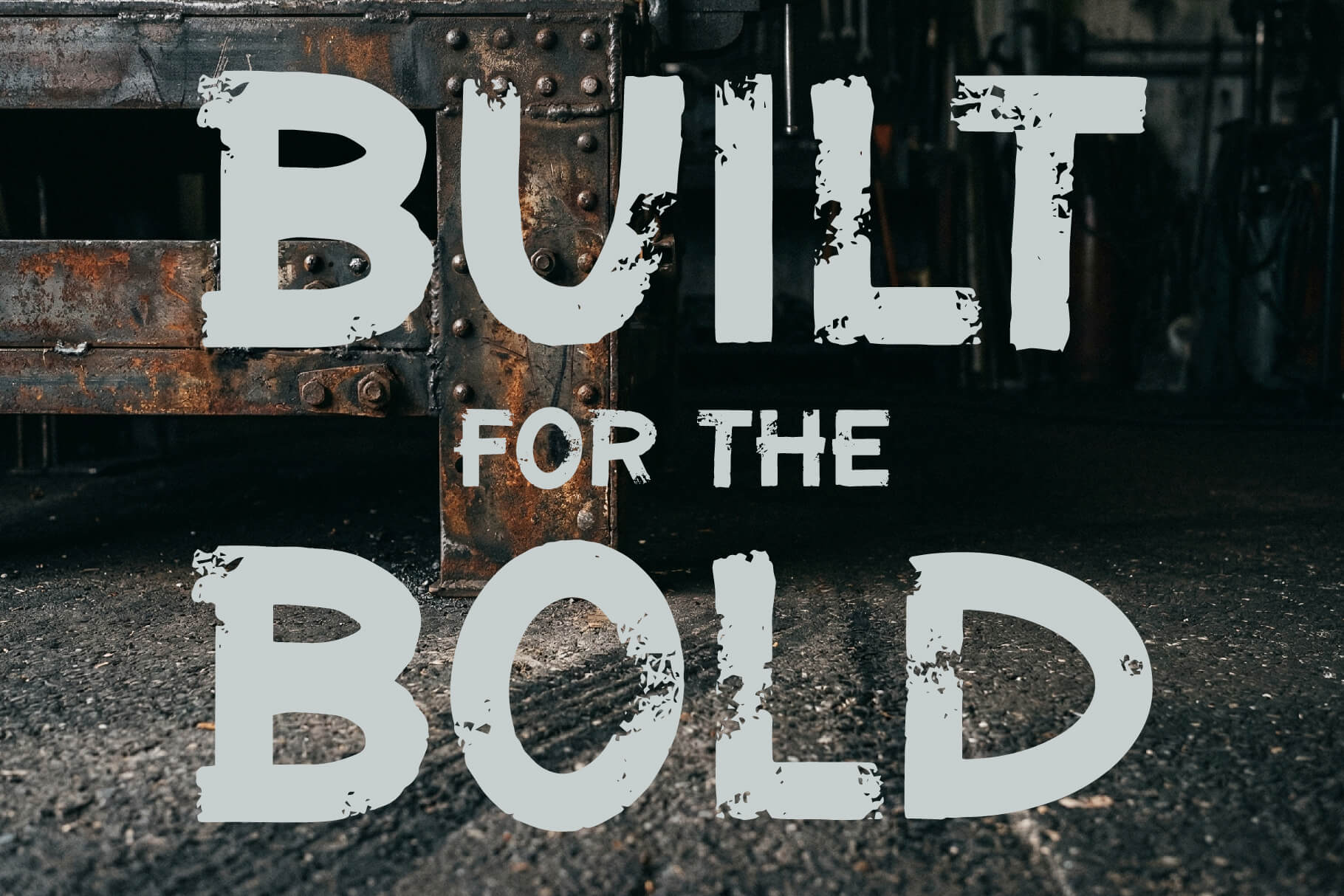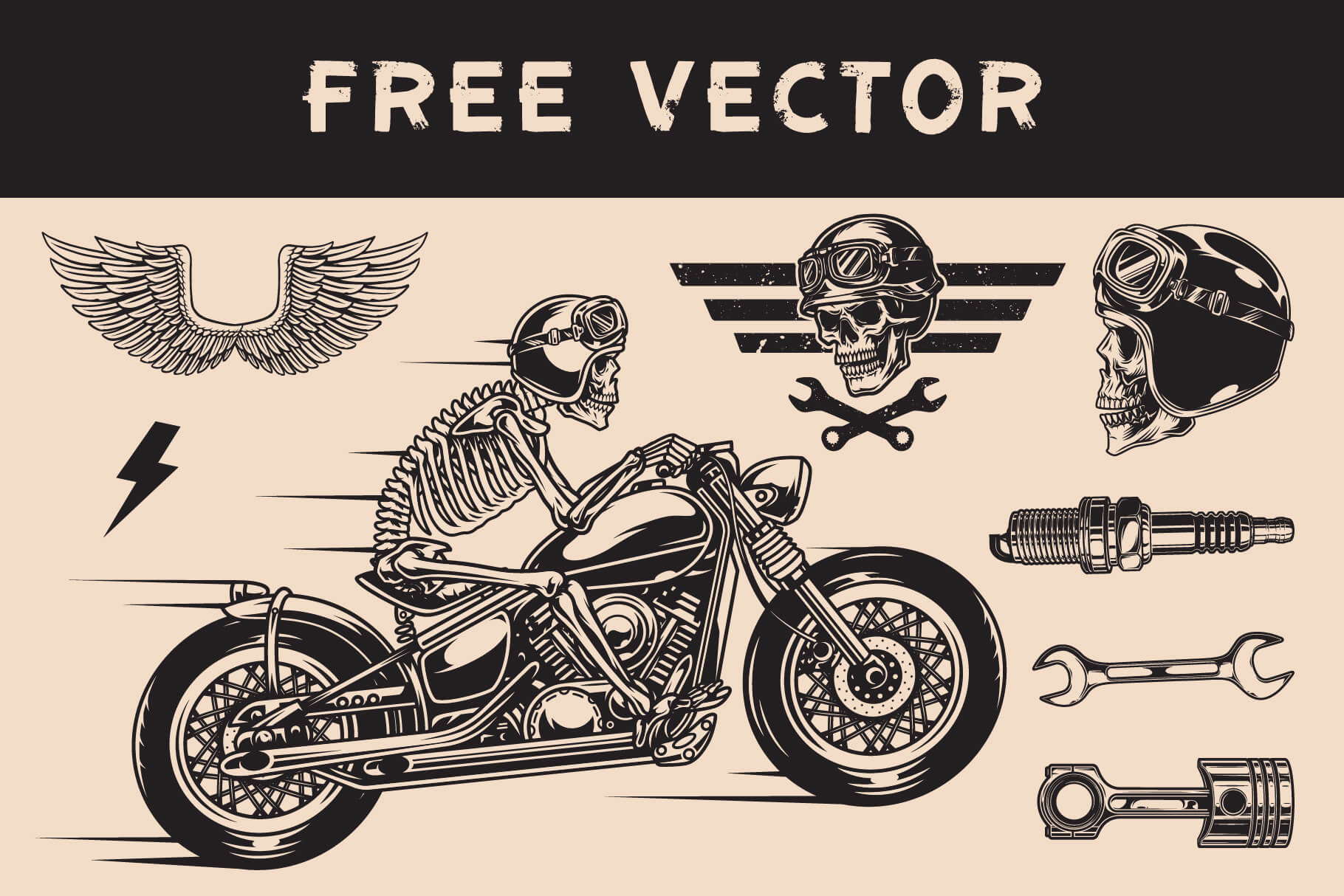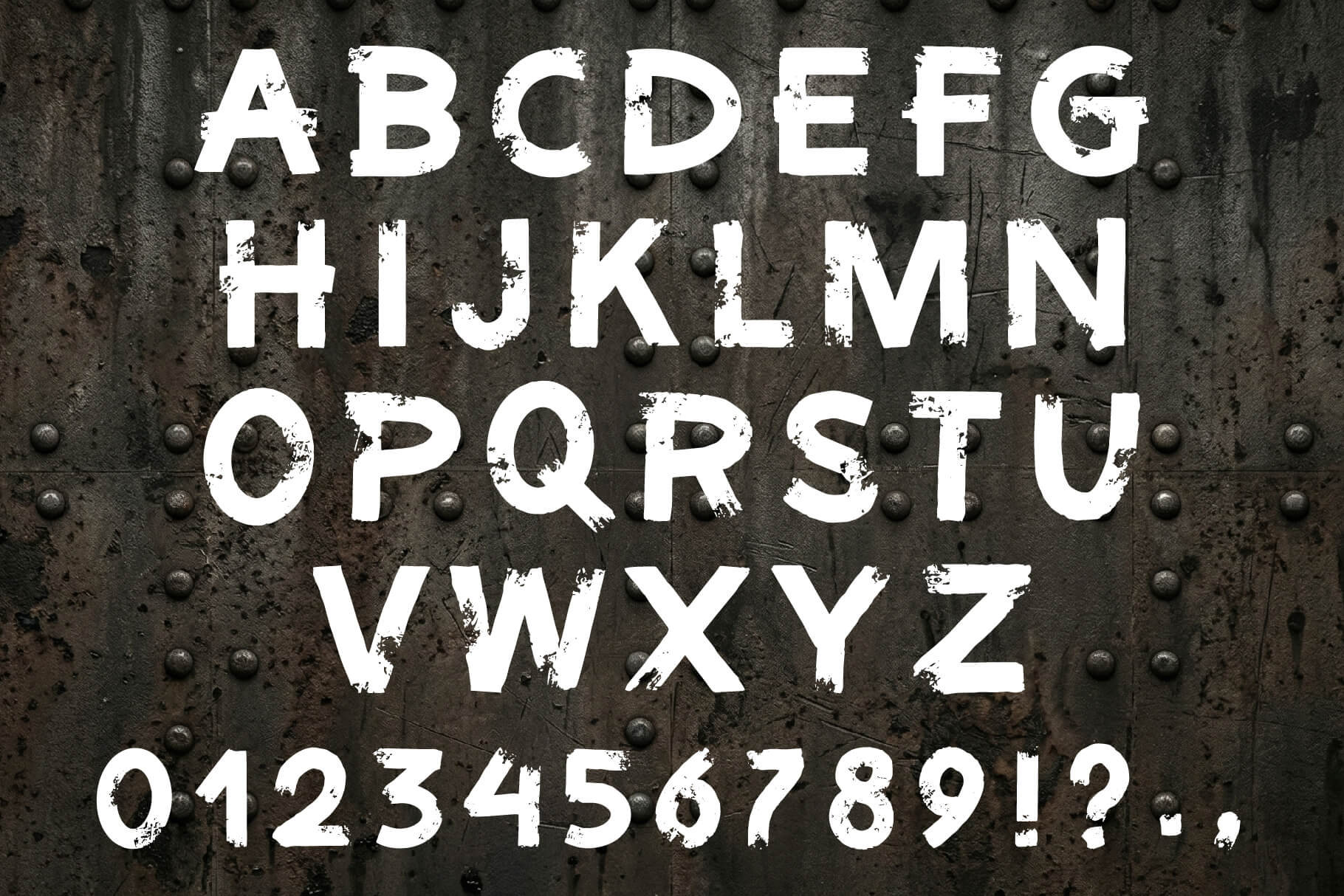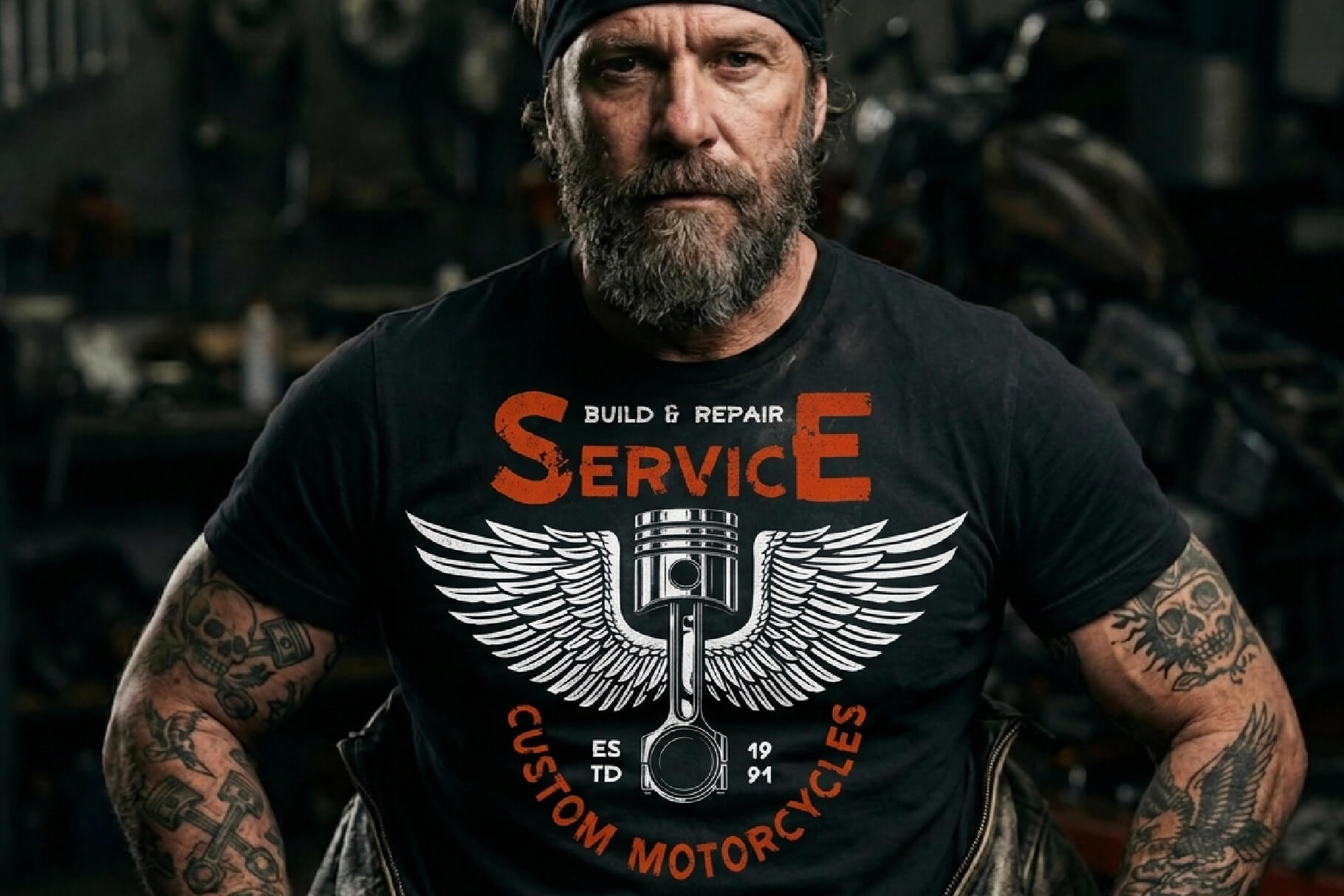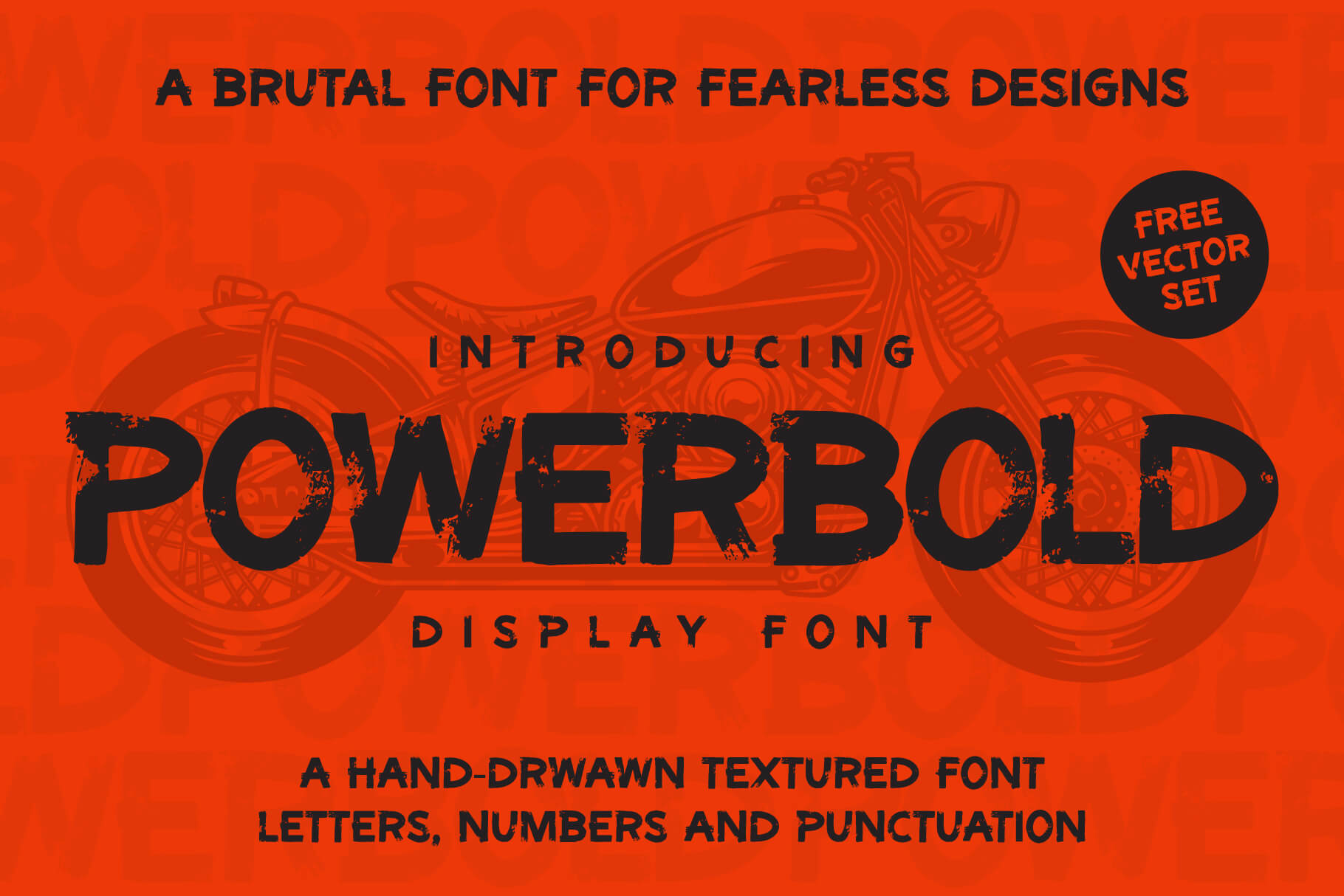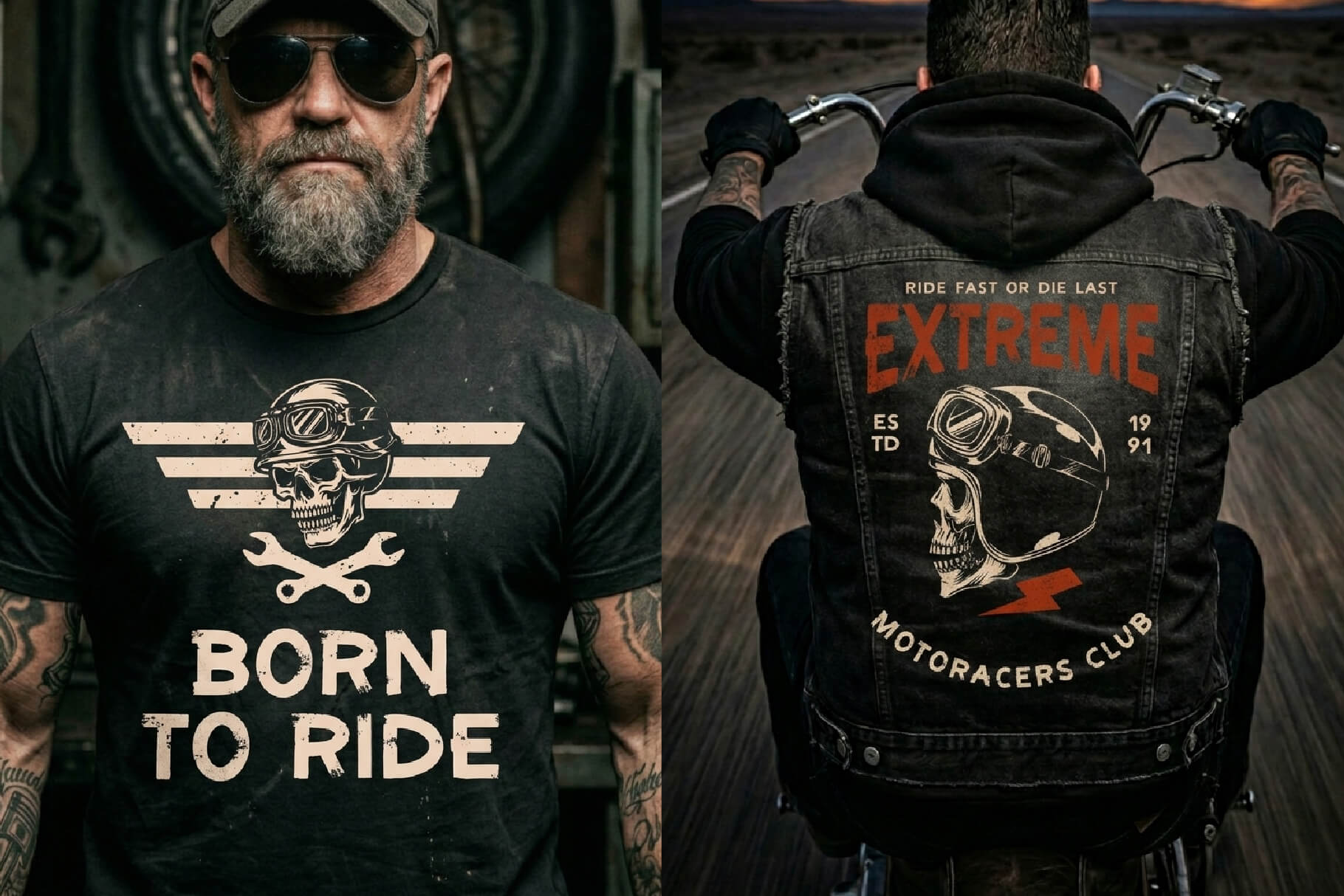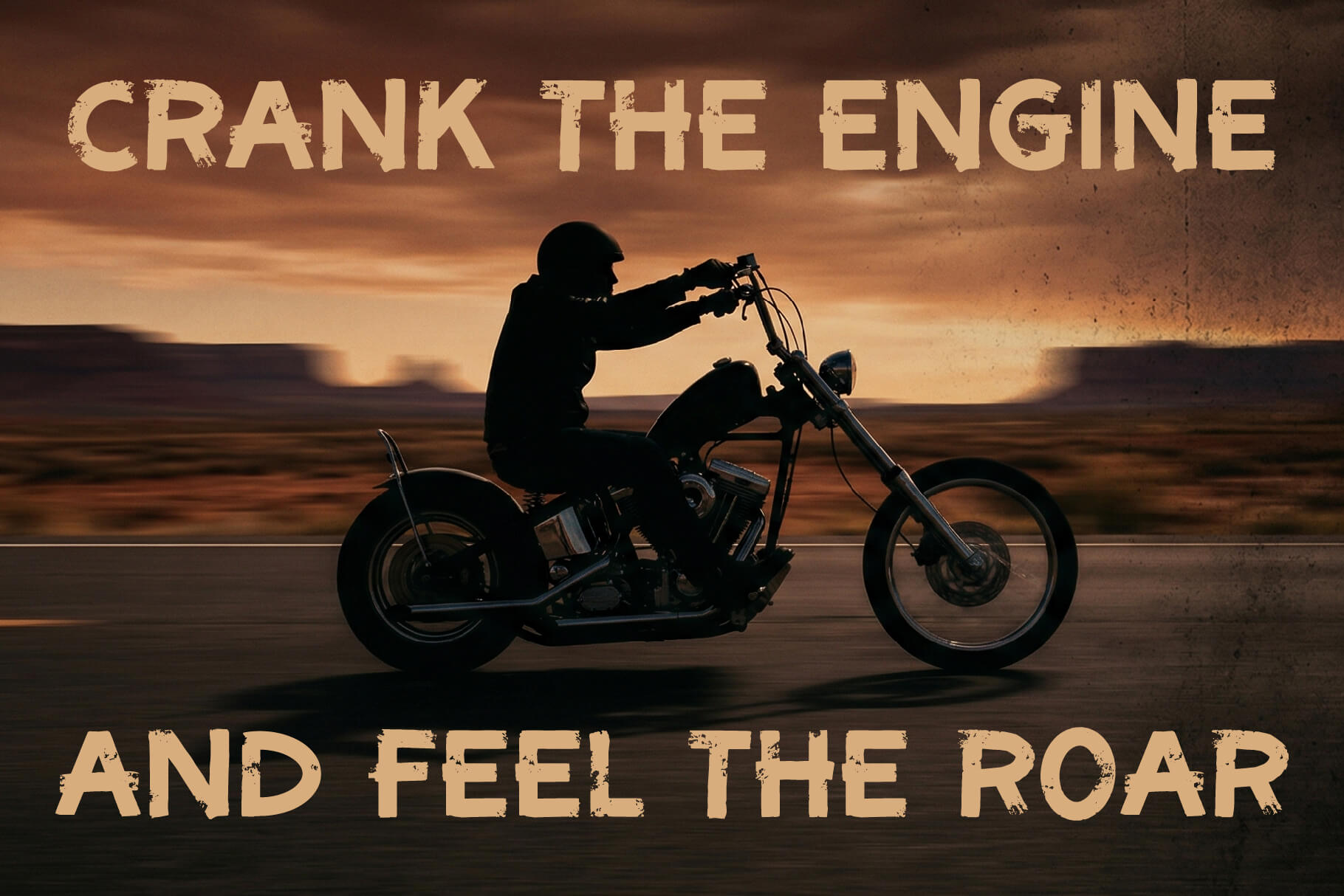
POWERBOLD display font
POWERBOLD is a heavy, high-impact display typeface built for maximum presence.
Its thick, confident letterforms hit hard and stay perfectly legible at large sizes, giving any layout a strong, athletic energy.
POWERBOLD works especially well for sports and streetwear branding, posters, packaging and powerful headlines.
IDEAL FOR
– Sports and streetwear branding
– Posters and covers
– Packaging and labels
– Logos and headlines
– Social media visuals